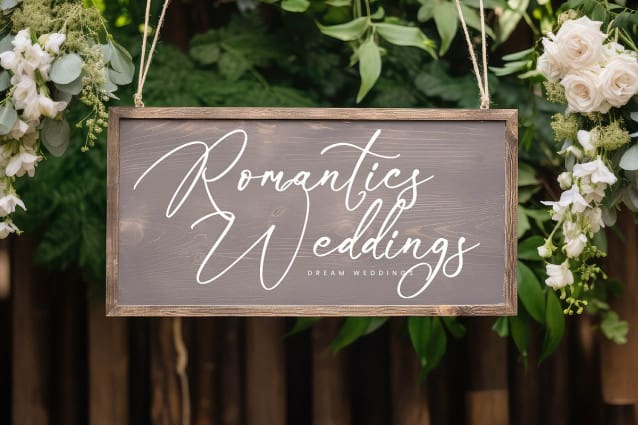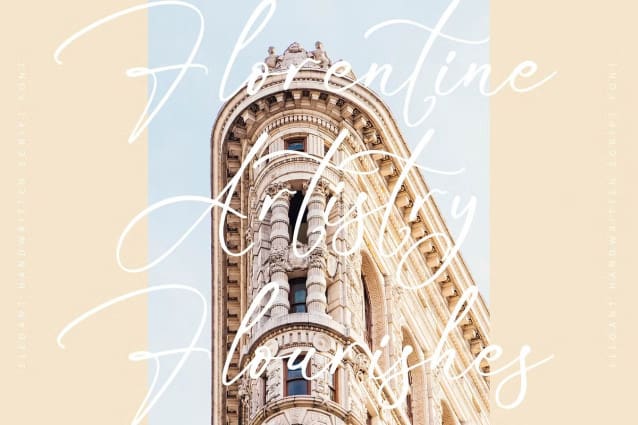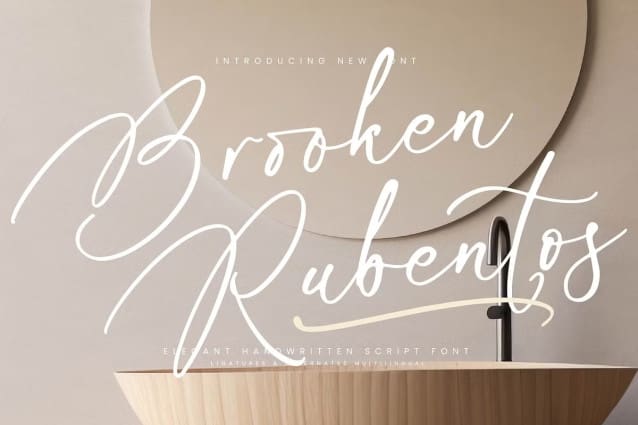
Brooken Rubentos Font
Brooken Rubentos Font – Elegant Handwritten Script Font, from Integritype Studio, perfect for any project like: logos, branding projects, homewares designs, product packaging, mugs, quotes, posters, shopping bags, t-shirts, covers books, business cards, invitation cards, greeting cards, labels, photography, watermarks, special events and all your other luxury projects that require a premium taste.